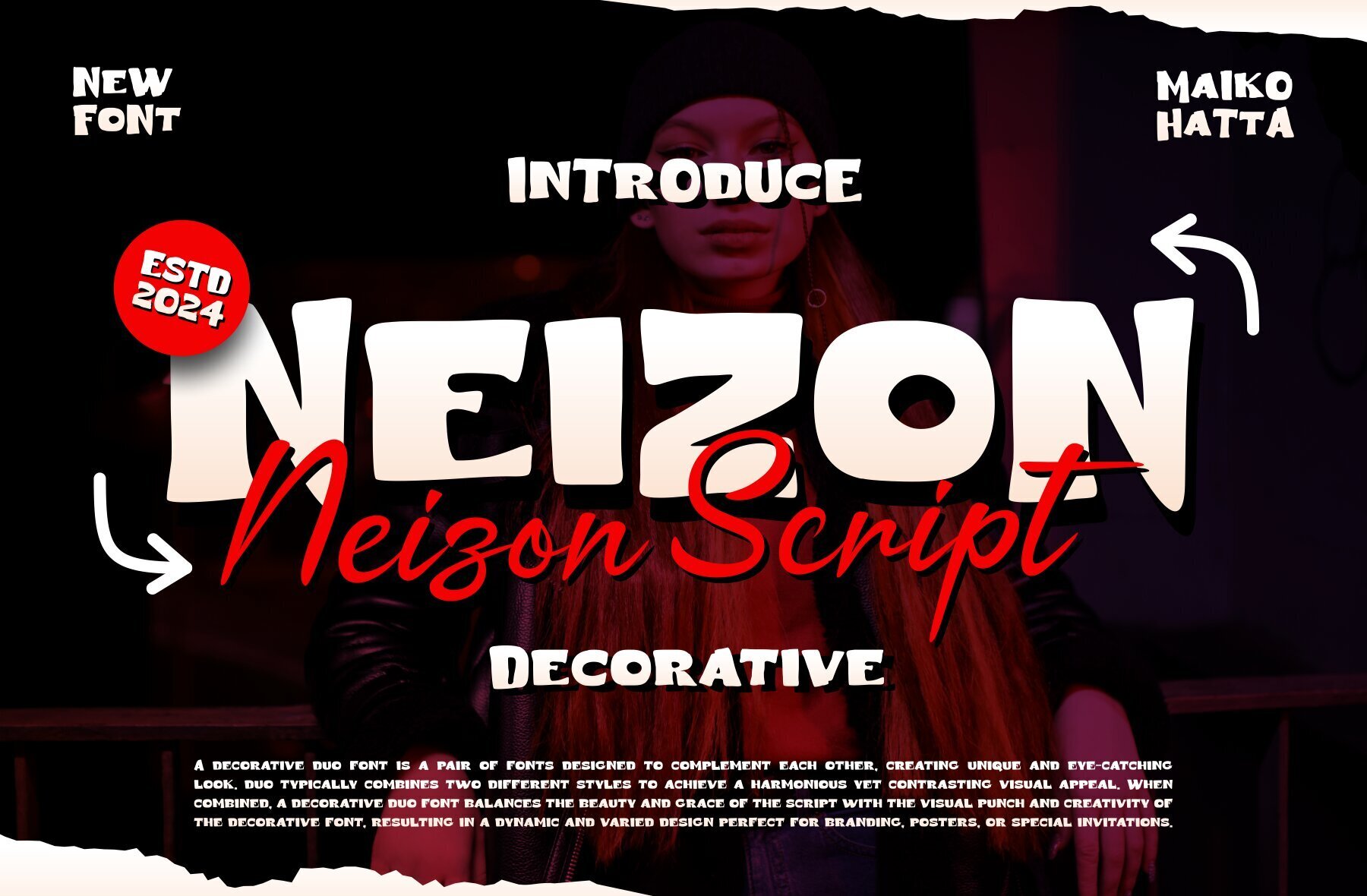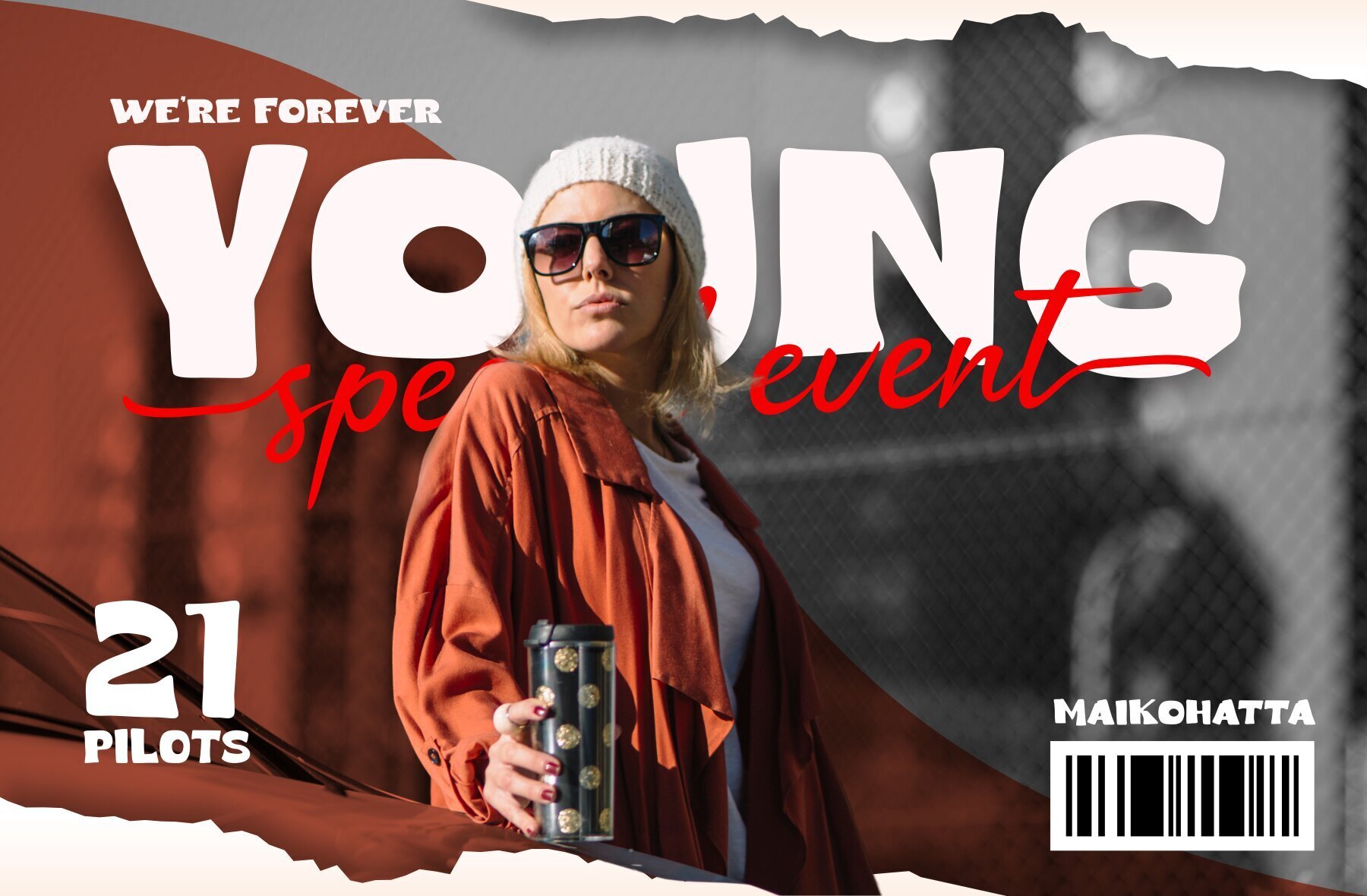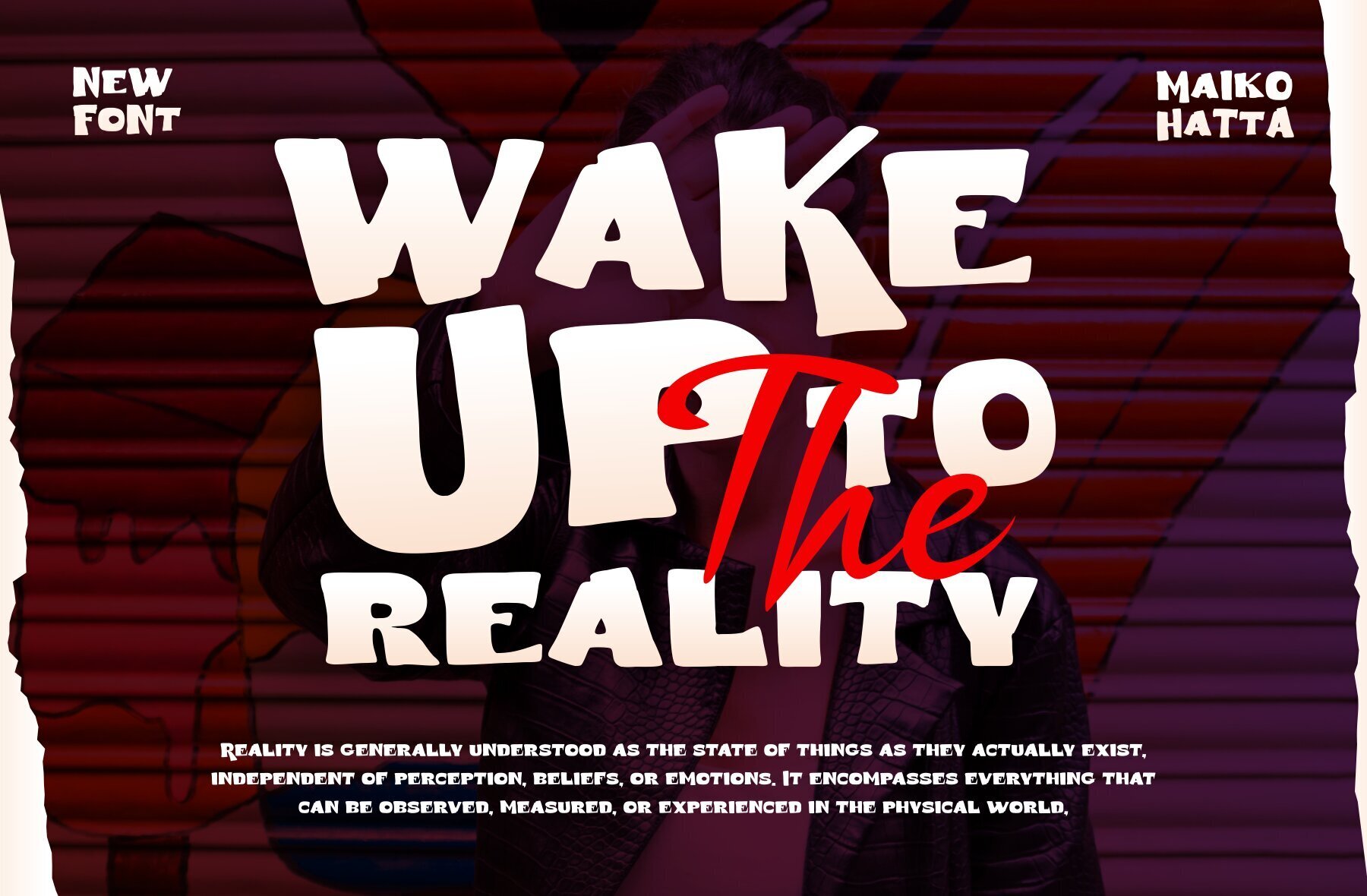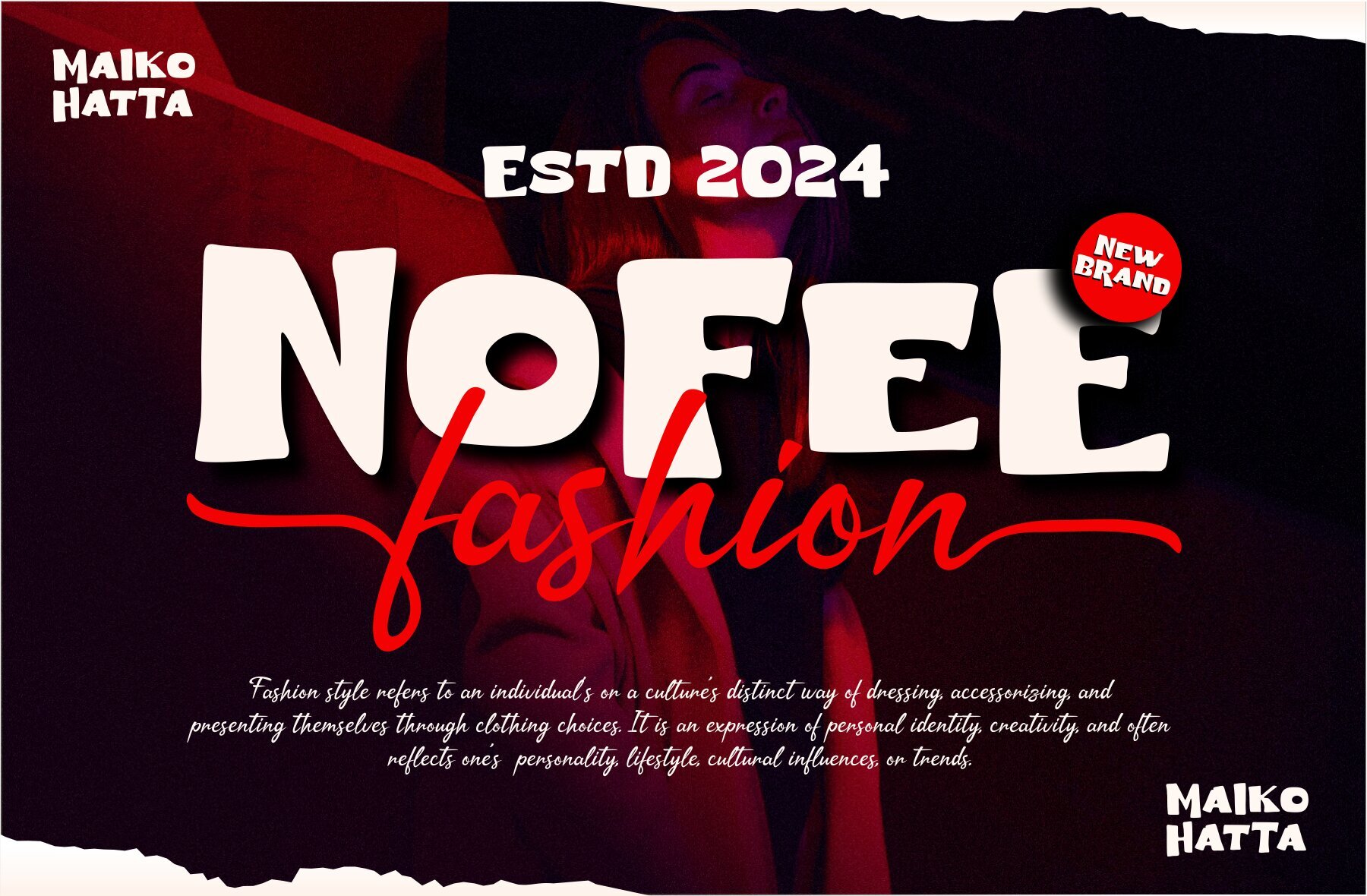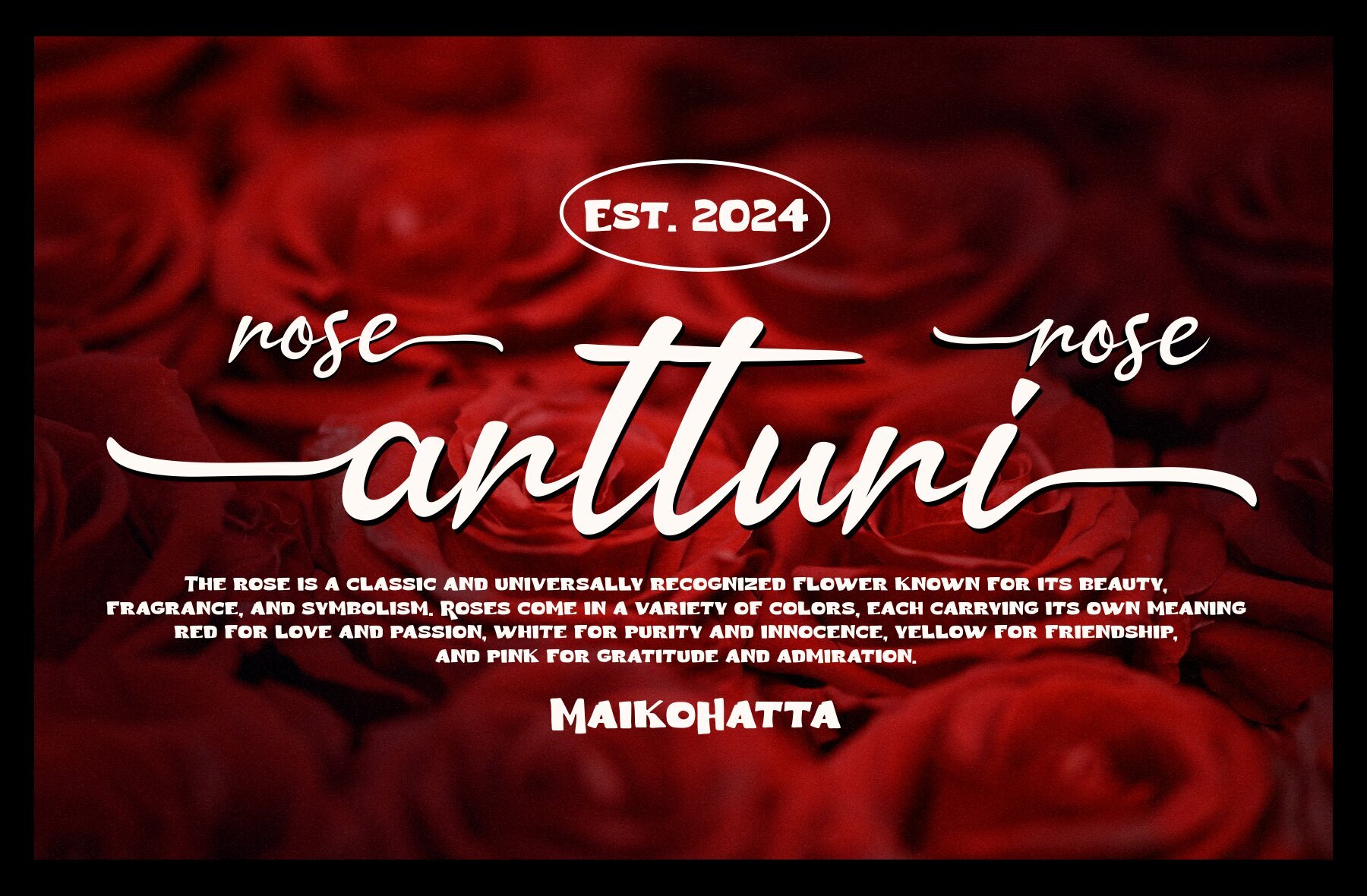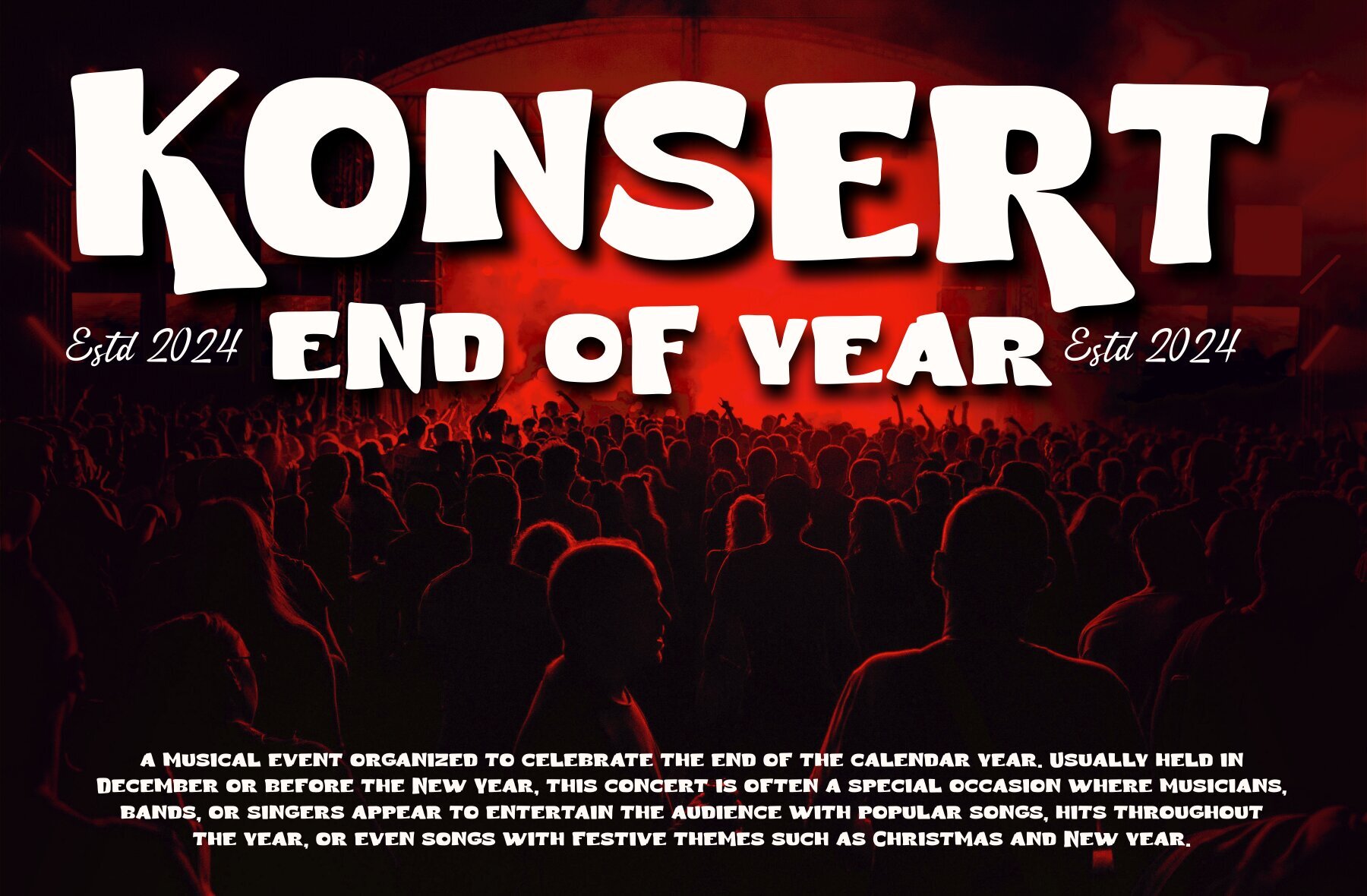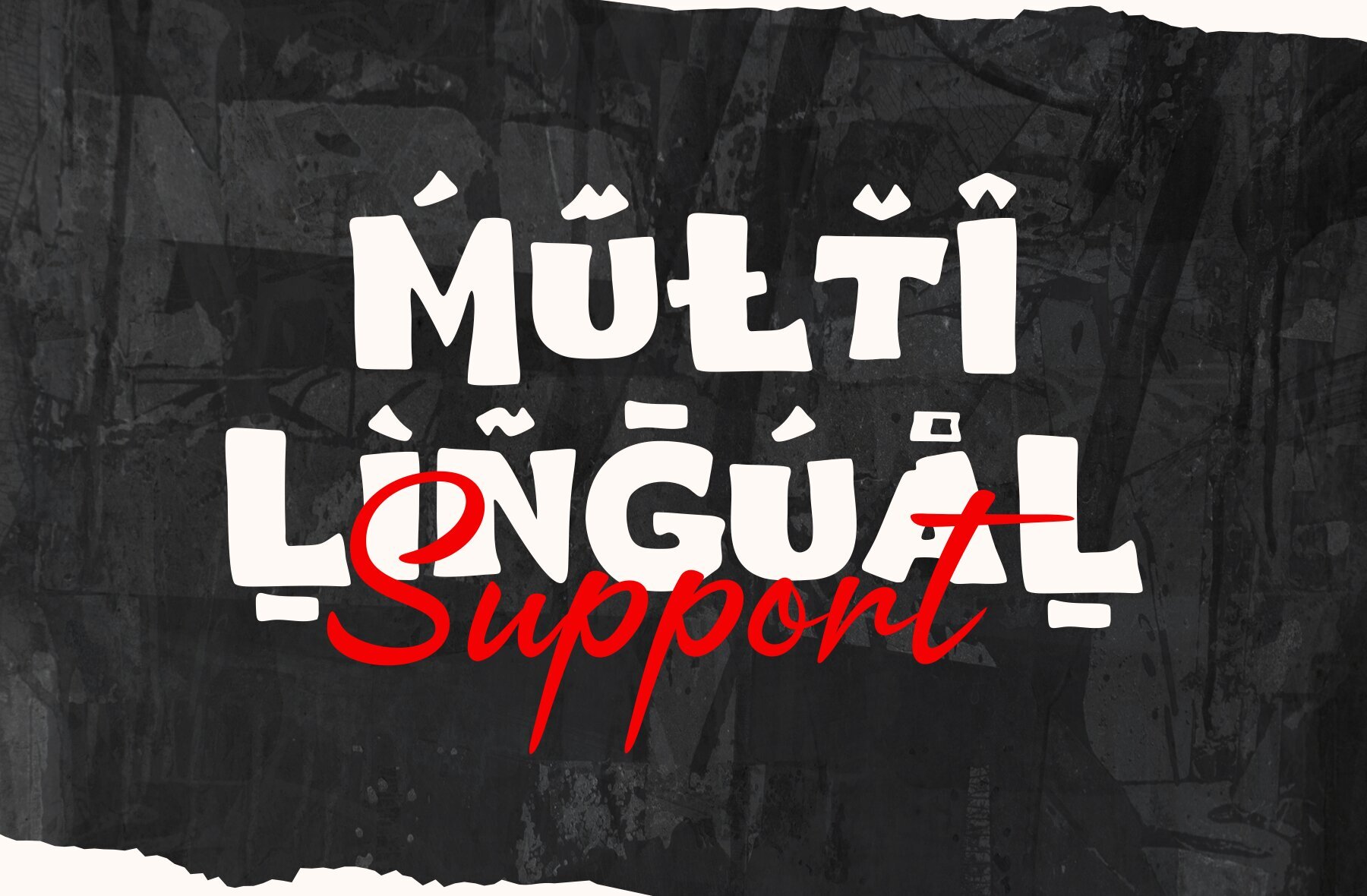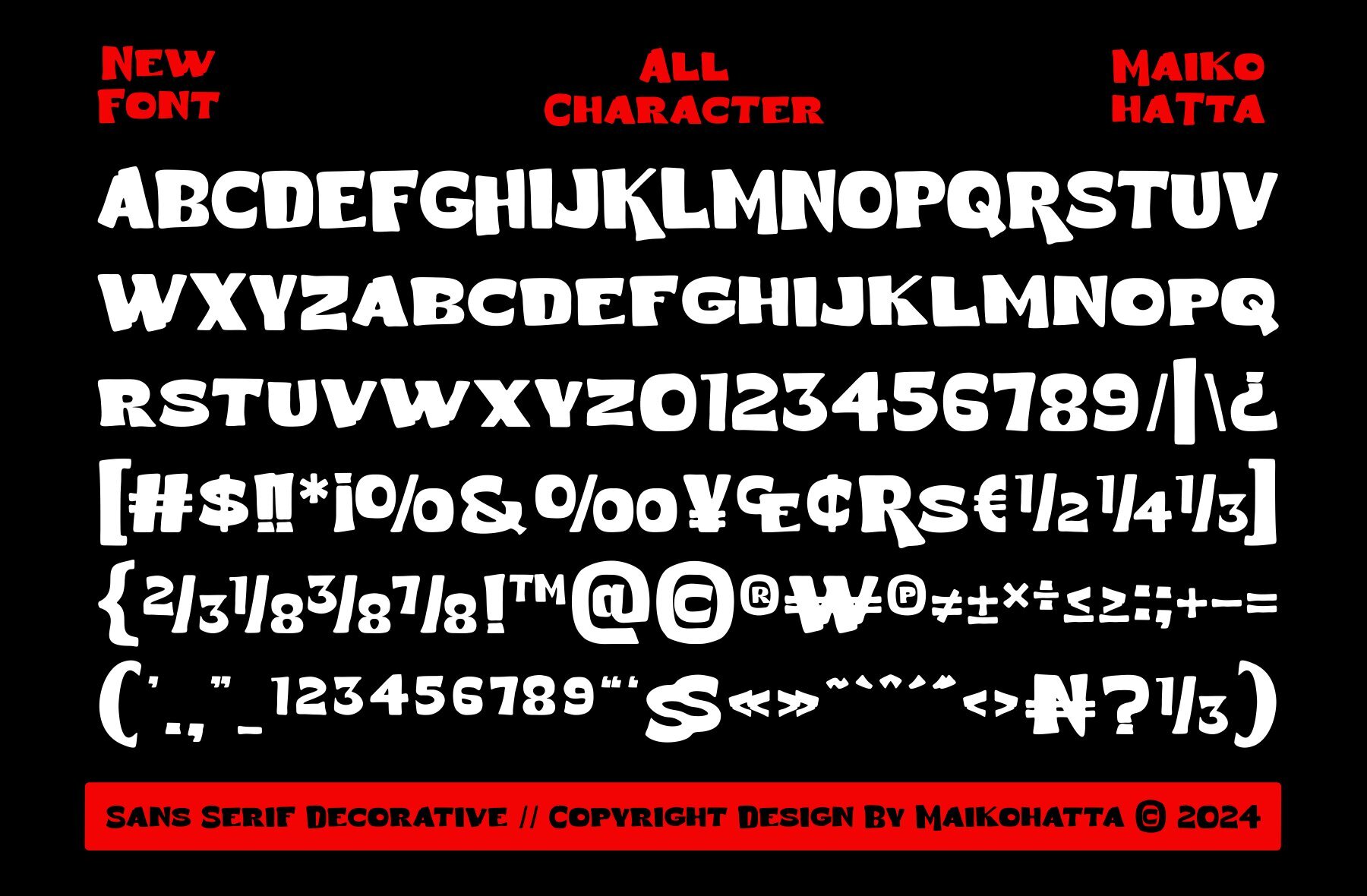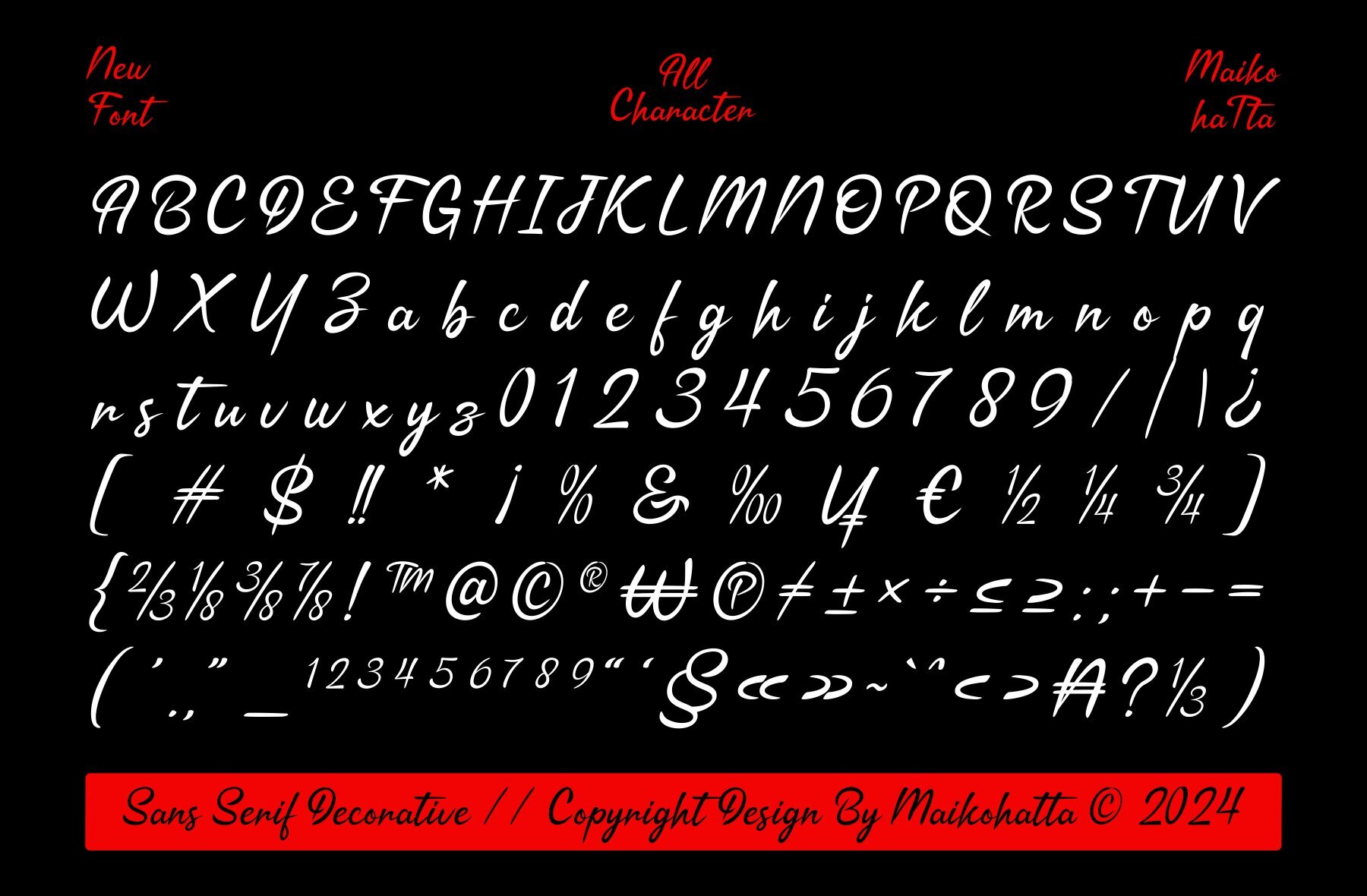
Neizon Font
Discover the Decorative Font Duo, a sophisticated blend of serif and script styles that offers a unique visual harmony. The serif component provides a structured foundation, while the script imparts a touch of creative flair. This distinctive combination results in an eye-catching contrast that seamlessly transitions between formal and personal tones. Ideal for designers aiming to communicate a range of messages with an alluring style, this font duo is a versatile choice.
Perfectly suited for a wide variety of applications, this font duo excels in invitations, brand promotion, books, greeting cards, logos, web design, and presentations. Its ability to balance elegance with creativity allows for engaging and flexible communication across different projects. Whether you're aiming for a formal atmosphere or a more personalized feel, this font duo adapts effortlessly, offering the right touch for every occasion.